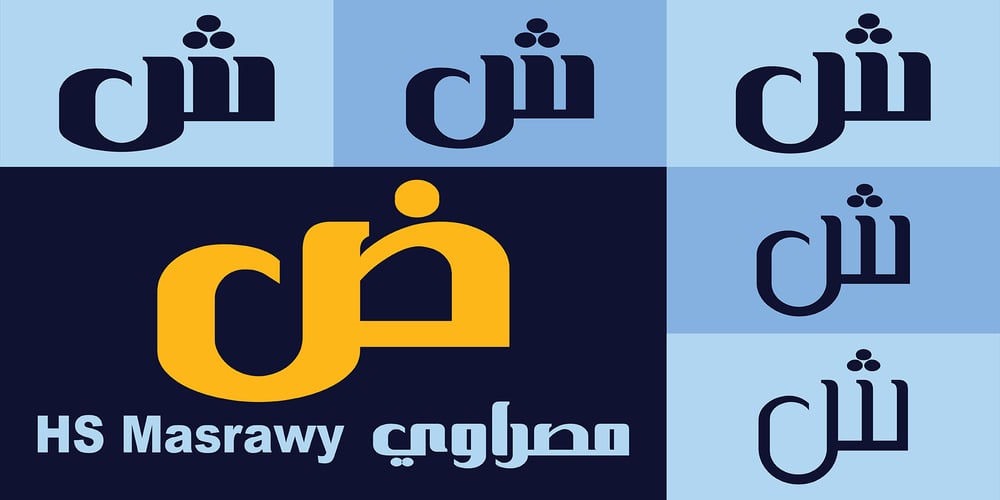
HS Masrawy Font Family was designed by Abdulsamiea Rajab Salem, Hasan Abu Afash and published by Hiba Studio. HS Masrawy contains 4 styles and family package options. HS Masrawy is an Arabic display typeface. It is useful for titles and graphic projects where a contemporary, streamlined look is desired. The font is based on the simple lines of Kufi calligraphy. The font has a new modern idea where the vertical strokes have a constant value in all of its five weights. It has (5) weights and supported Arabic, Persian and Urdu compatible with Unicode. HS Masrawy is the first released typeface of collaboration between Hasan Abu Afash and Egyptian designer Abdulsamie Rajab Salem.